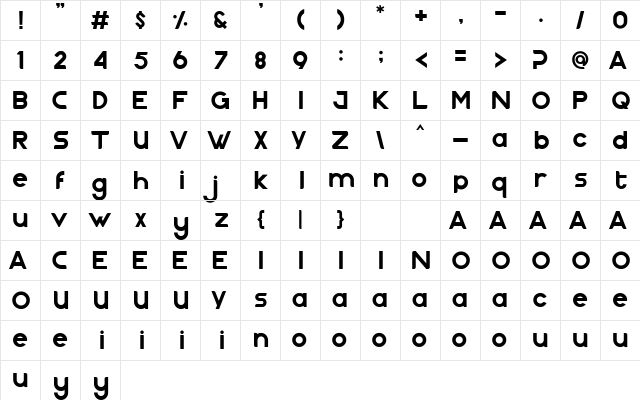
Nazegul Regular
| Foundry | Guna Studio |
| Designer | Fandi Kurniawan |
Design Context for Nazegul Typeface
Nazegul takes a measured approach to typography — its balanced proportions and neutral character make it a reliable workhorse for both digital and print work.